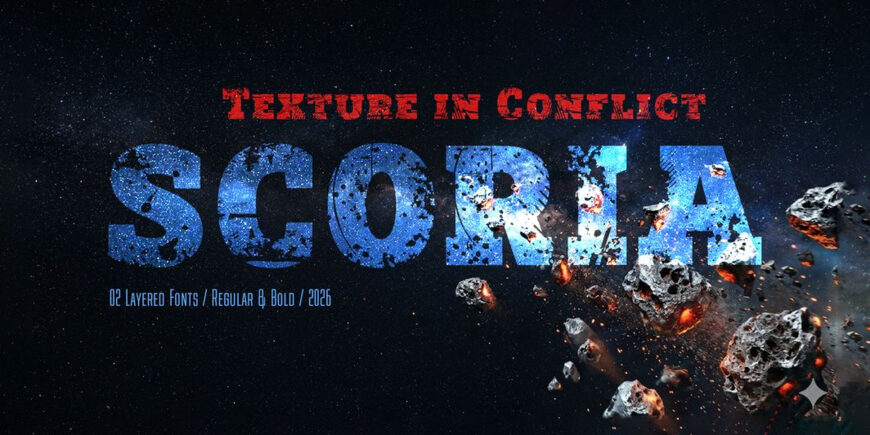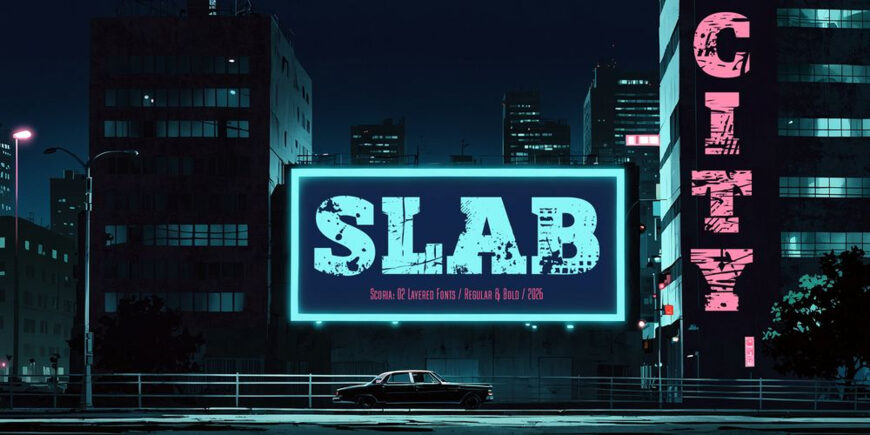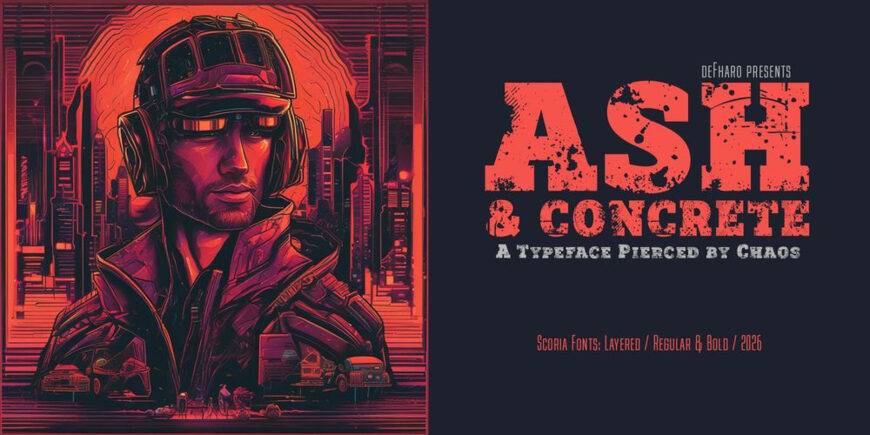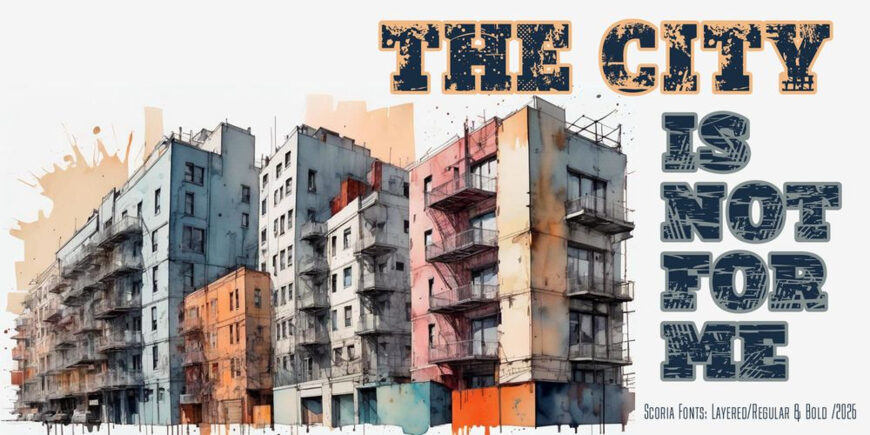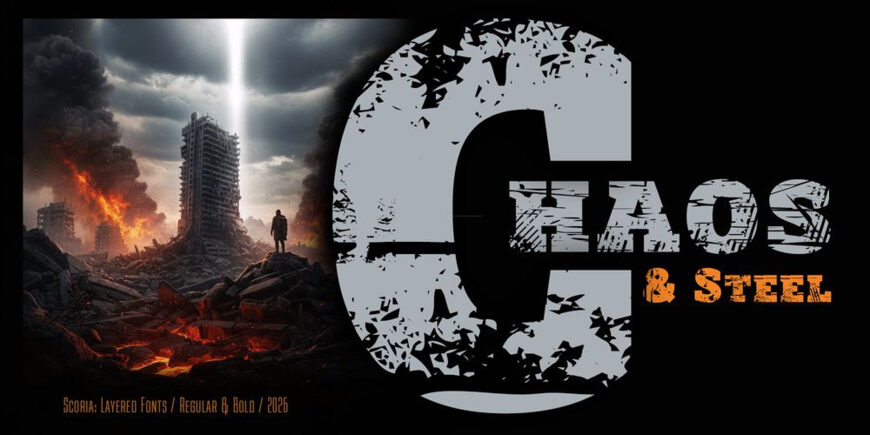
Scoria Caps was born as a rescued typographic relic, with its distinctive slab serif style, from a landscape devastated by a world torn apart. Its presence is aggressive, heavy, and profoundly expressive, like a fragment of industrial architecture surviving a catastrophe.
It screams from the depths of its broken and eroded texture. Each letter seems to carry scars, cracks, and memory, in a declaration of typographic rebellion that adapts to the most intense and urban contexts, a symbol of resistance amidst chaos. Scoria Caps defies polished, uniform perfection; it is a square, grunge, slab serif typeface, textured, eroded, and deliberately dirty.